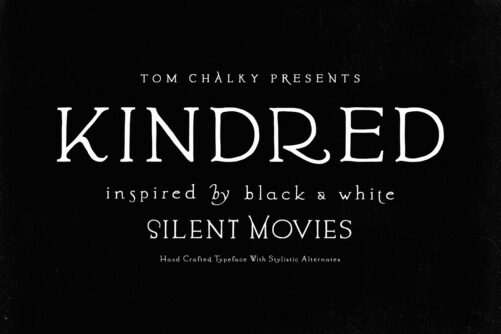
Kindred – Vintage Typeface
Introducing Kindred, a handcrafted typeface by Tom Chalky, inspired by the iconic showcards of black-and-white silent movies. With a unique, quirky flair, Kindred brings vintage character to modern design projects, from branding and packaging to print and editorial work.
Featuring a range of stylistic alternates, this font is versatile enough to make a bold statement in headlines and add charm to longer texts. Kindred captures the nostalgia of early cinema, blending historical inspiration with a fresh, modern edge for creative professionals seeking a unique, classic touch.